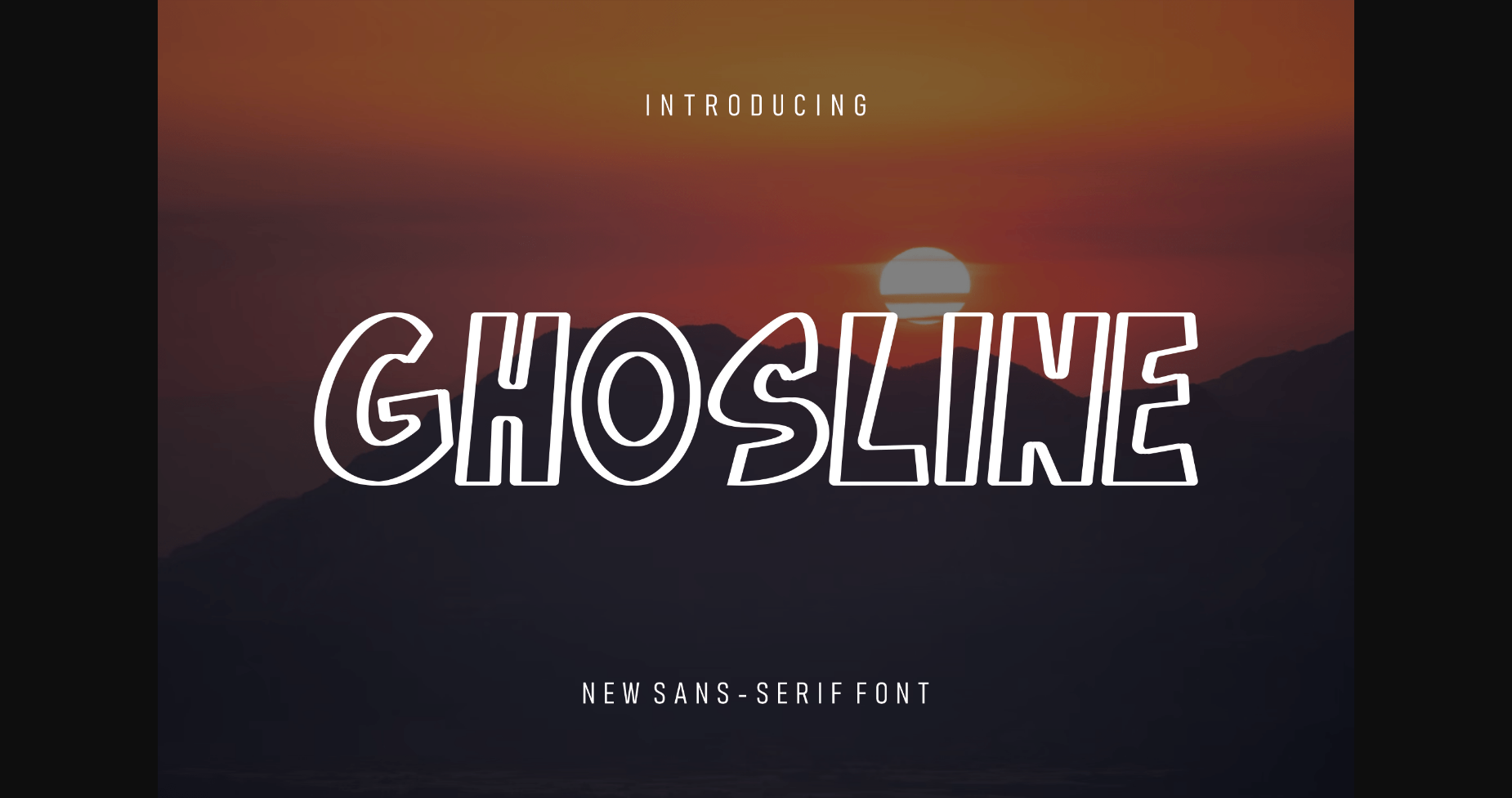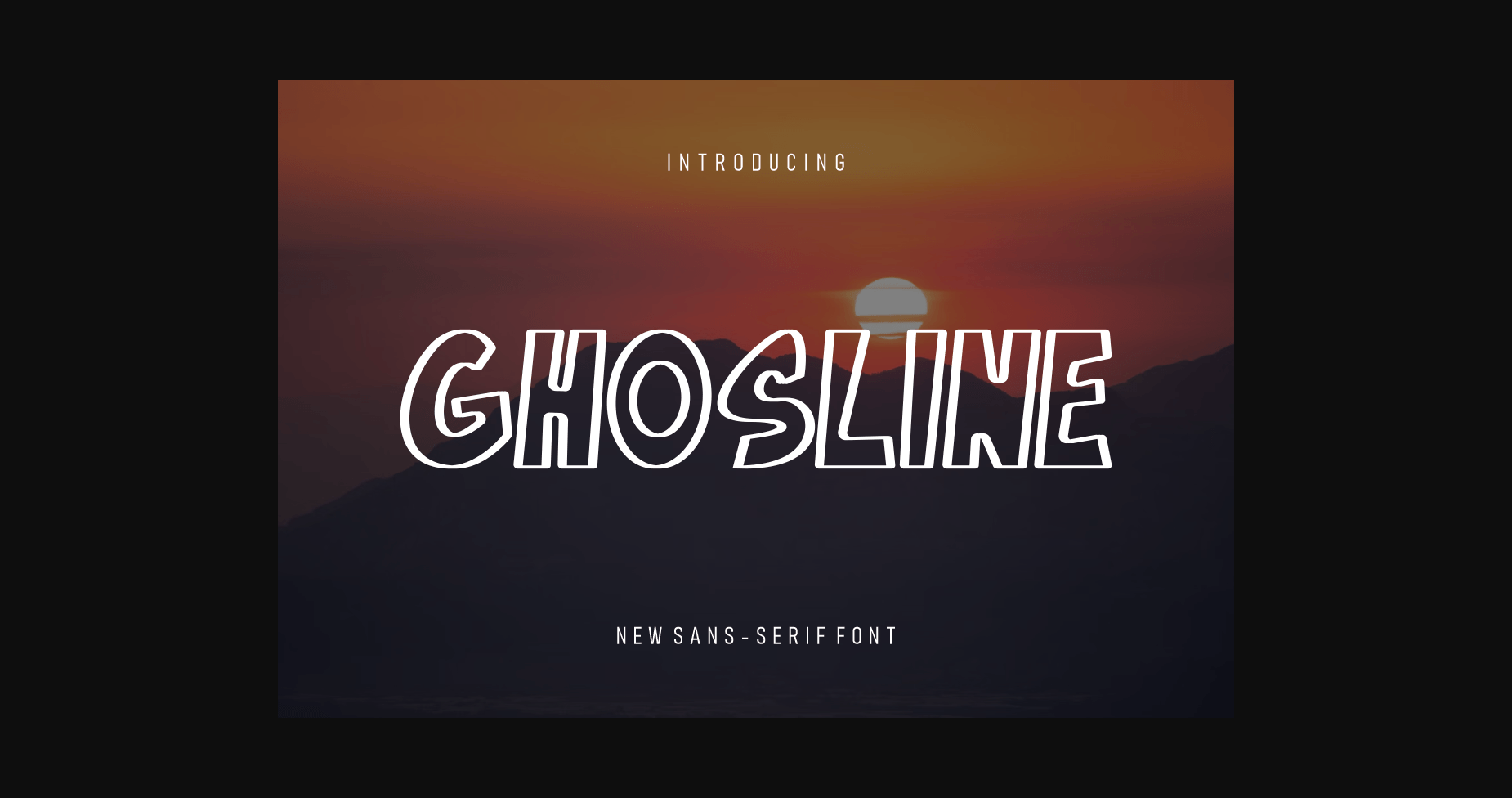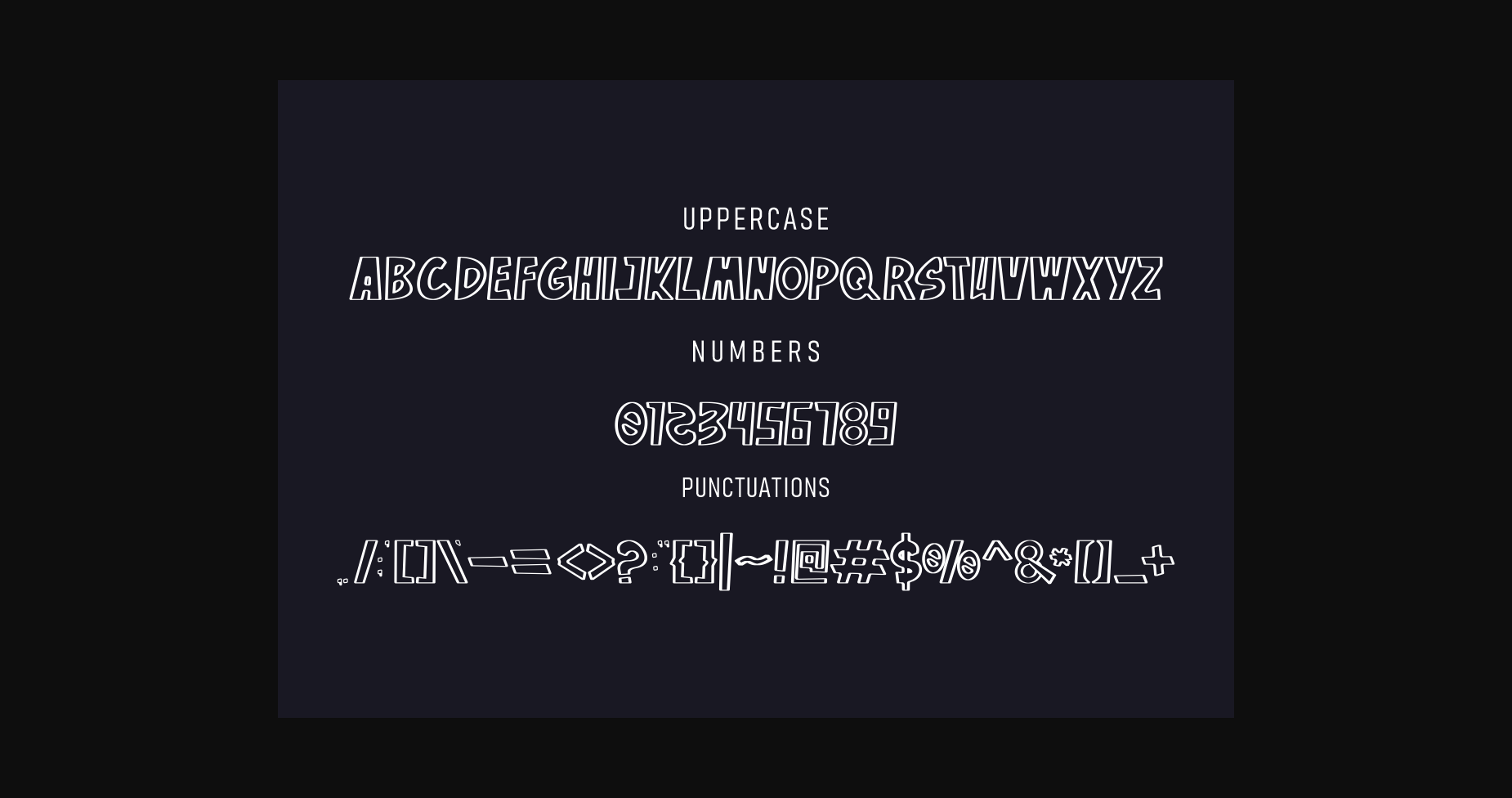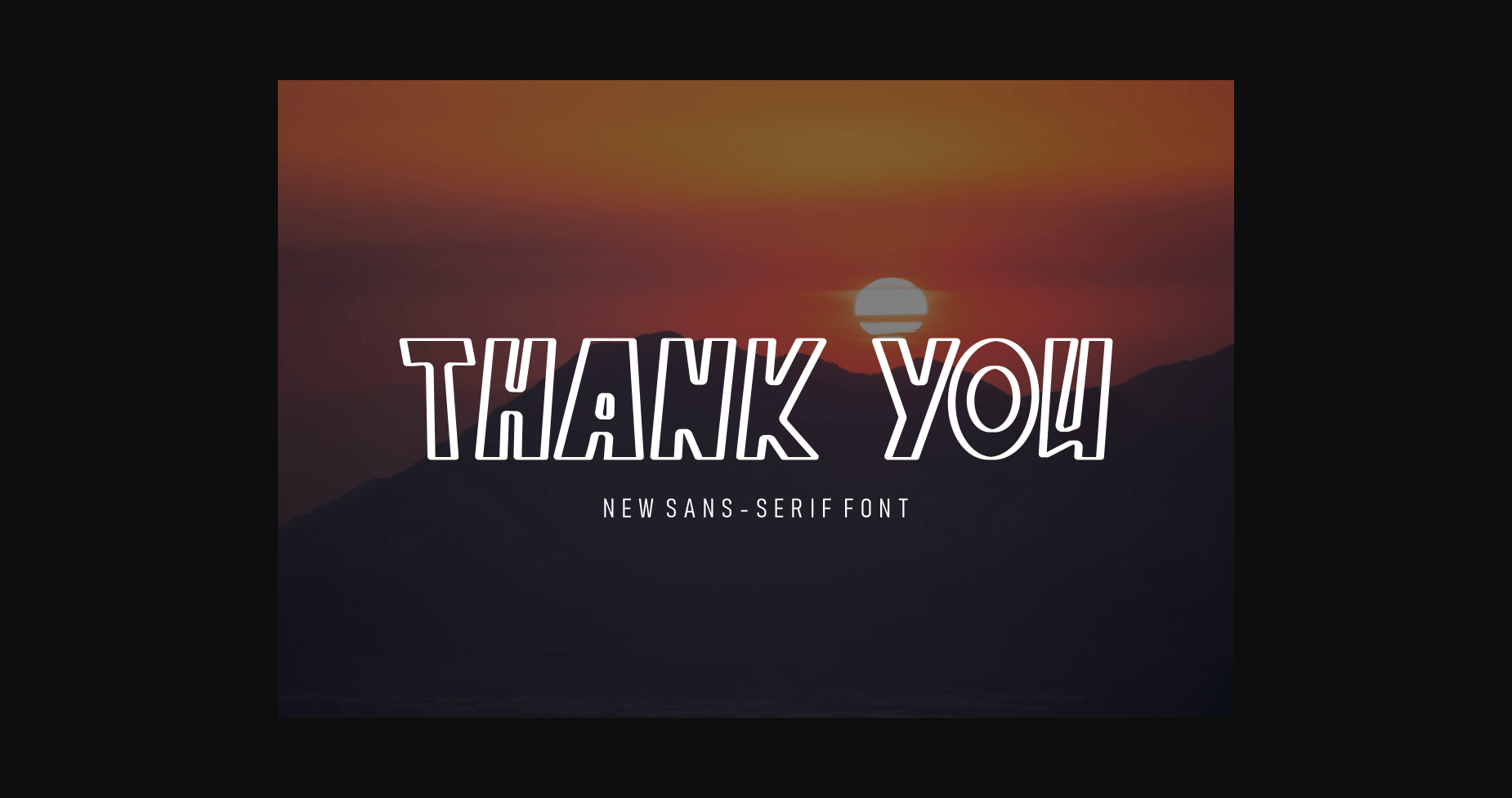
Ghosline Font
About Ghosline Font
Ghosline is a modern outlined sans serif font that feels beautiful classy, elegant, and modern. This font is perfectly suited for a wide variety of projects, such as signature, stationery, logo, wedding, typography quotes, magazine or book cover, website header, clothing, branding, packaging design, and more.